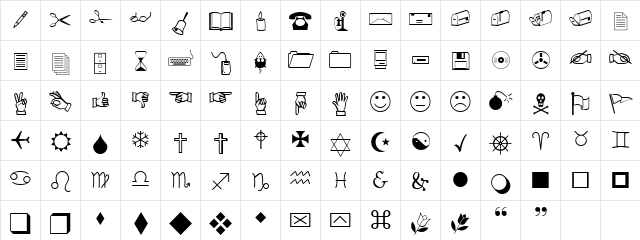
XIngyDings Regular
Design Context for XIngyDings Typeface
XIngyDings takes a measured approach to typography — its balanced proportions and neutral character make it a reliable workhorse for both digital and print work.